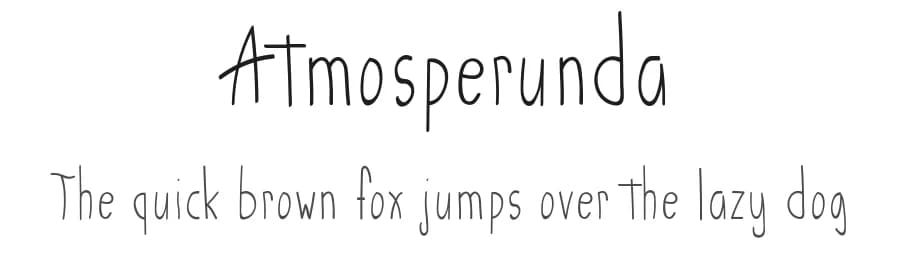
About Atmosperunda Font
Atmosperunda is a script & handwritten font designed by Raafi Hilmi. It includes 66 glyphs, a regular weight, TTF (TrueType) format, and 89 languages. Atmosperunda is free to download; check the license details on this page before commercial use. Script & handwritten fonts like Atmosperunda work best for wedding invitations, greeting cards, signatures, and elegant branding.
Atmosperunda Font is a script font that shines as a display or heading face. Pair it with a clean sans-serif or serif font for body text β the contrast creates a clear hierarchy while the two styles stay balanced and easy to read.
Atmosperunda Font